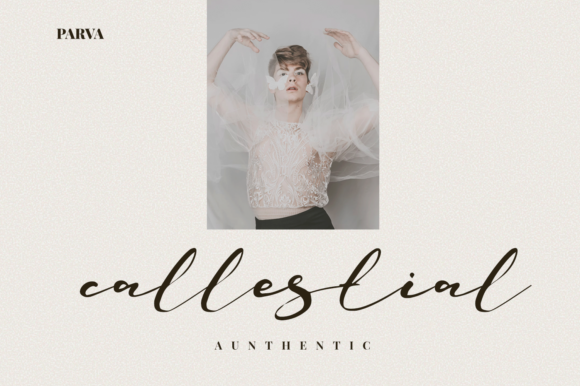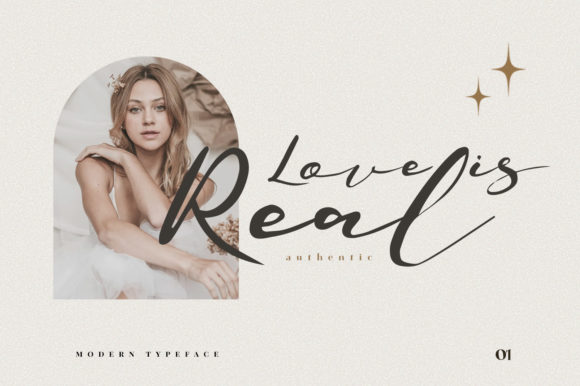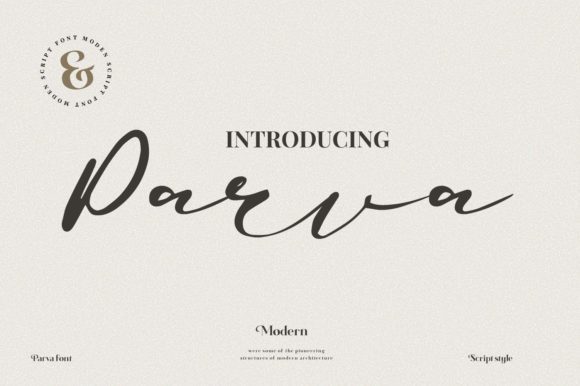
Parva Font
About Parva Font
Parva is a modern script font that serves as a versatile and stylish tool for designers. With its contemporary appeal, you have the freedom to experiment and create stunning designs or products that capture attention. The font’s natural and unique style makes it exceptionally well-suited for a wide range of design projects.
Whether you’re working on branding, packaging, marketing materials, or any other creative endeavor, Parva adds a touch of modern elegance. Its script design exudes a sense of fluidity and individuality, allowing you to infuse your projects with a distinct and contemporary aesthetic.
The flexibility of Parva lies in its ability to adapt seamlessly to different design contexts. From sleek and professional branding to eye-catching product designs, this font enhances the visual appeal of your creations with its modern script charm.
In summary, Parva is not just a font; it’s a modern script typeface that empowers you to unleash creativity and craft amazing designs. Its natural and unique style lends itself to a broad spectrum of applications, making Parva a valuable asset for designers looking to make a bold statement with a touch of modern sophistication.